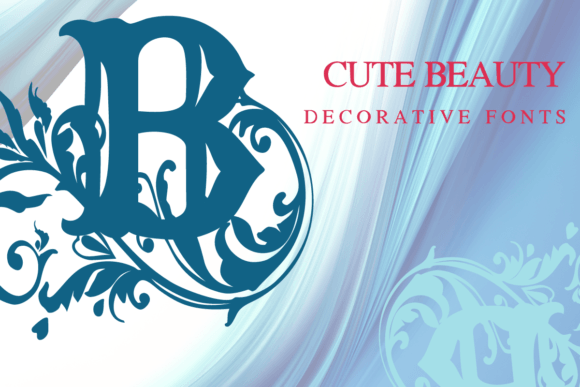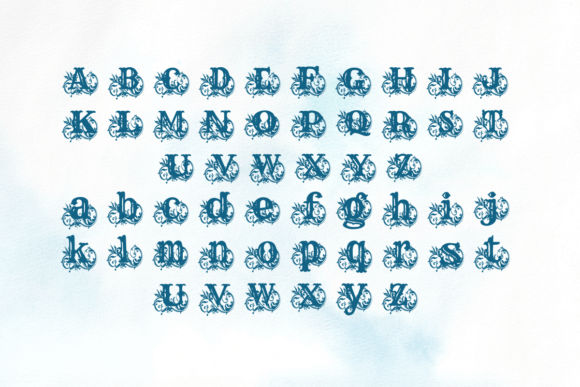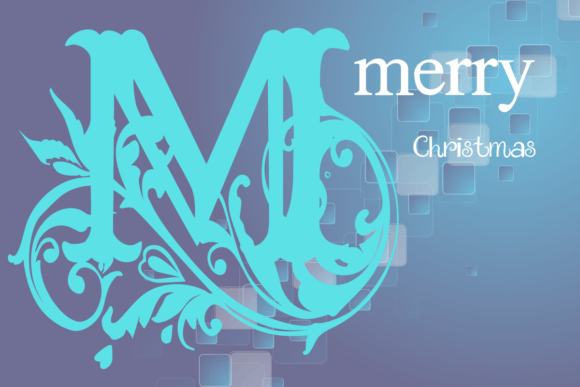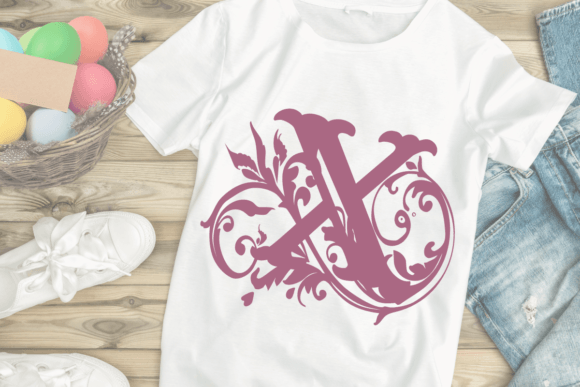
Cute Beauty Font
About the Cute Beauty Font
Step up your design game with Cute Beauty Font, a font that exudes confidence and style. Cute Beauty is a fancy font with lots of pretty swirls and decorations on each letter. It looks really nice and adds a special touch to whatever you’re writing.
Cute Beauty’s ornate style is ideal for short headlines, logos, and packaging design where its decorative elements add visual appeal. It works exceptionally well for projects targeting a female demographic, particularly in beauty, fashion, or wedding-related applications. However, its high level of detail makes it unsuitable for body text or UI elements; readability suffers at smaller sizes.
This font’s playful and feminine personality pairs well with clean, geometric sans-serif fonts like Montserrat or Open Sans for balance. For a more luxurious feel, consider a classic serif like Garamond or a delicate script like Great Vibes as a supporting font. Avoid pairing it with other highly decorative fonts to prevent visual clutter.
The overall effect is best described as romantic and charming. Projects needing a touch of whimsical elegance will find Cute Beauty a strong asset, but its intricacy limits its versatility.
Cute Beauty Font Usage Examples
Cute Beauty Font Example